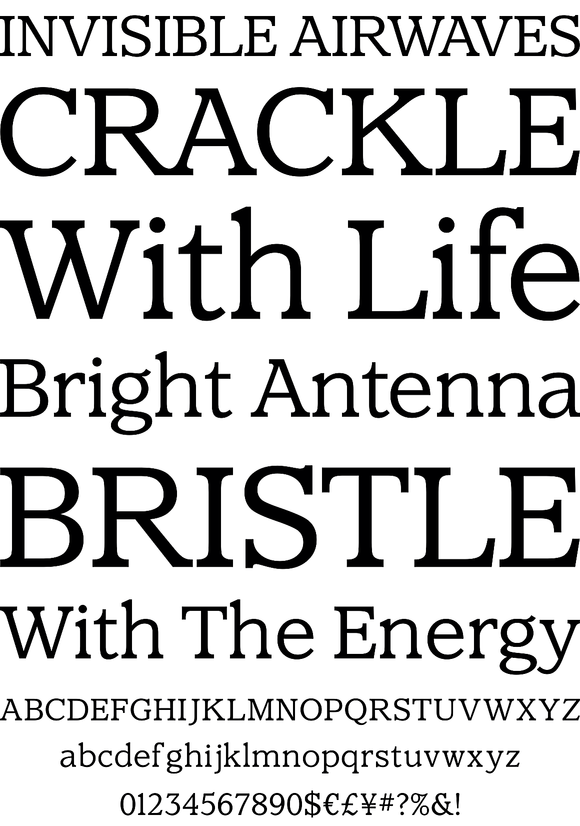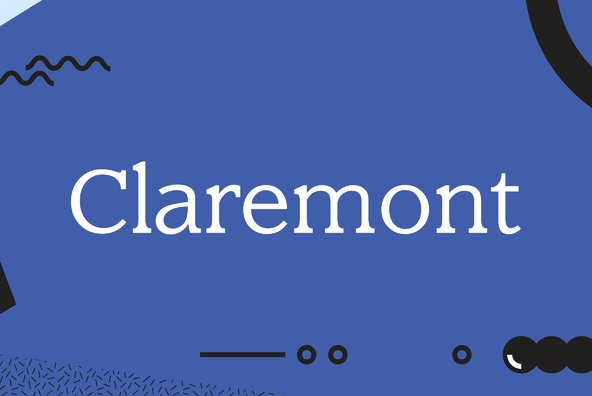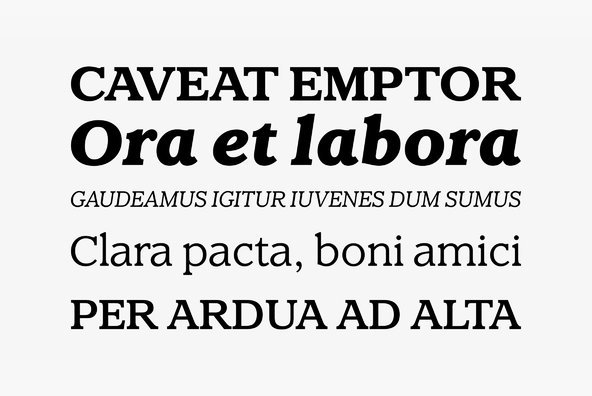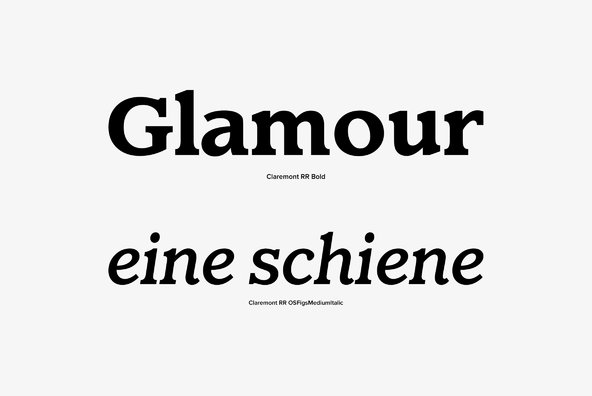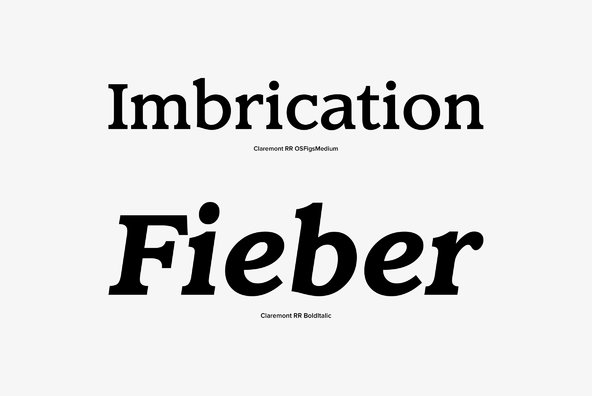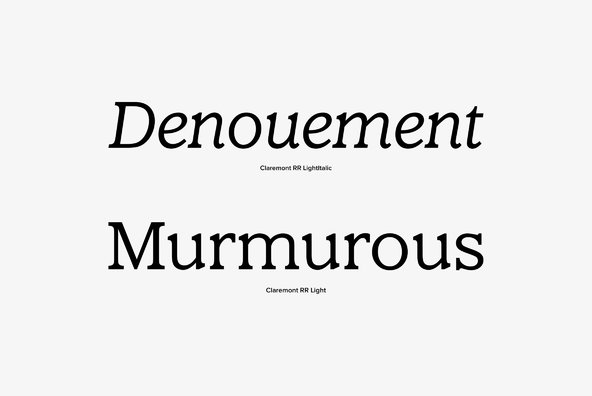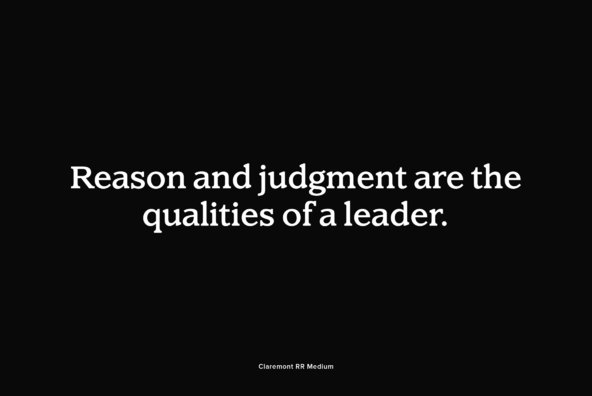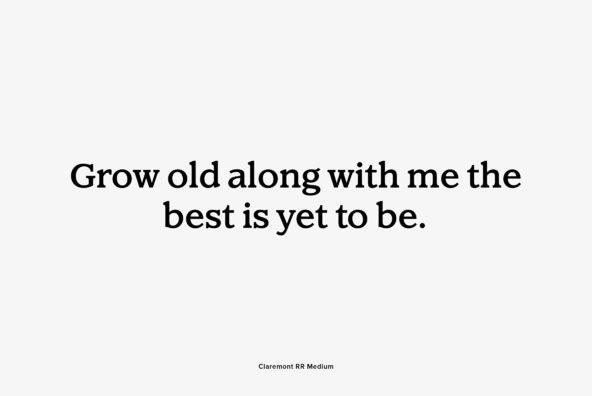
Claremont
Designed by Les Usherwood. Digitally engineered by Paul Hickson. Les never released this completed typeface before his untimely death in 1983.